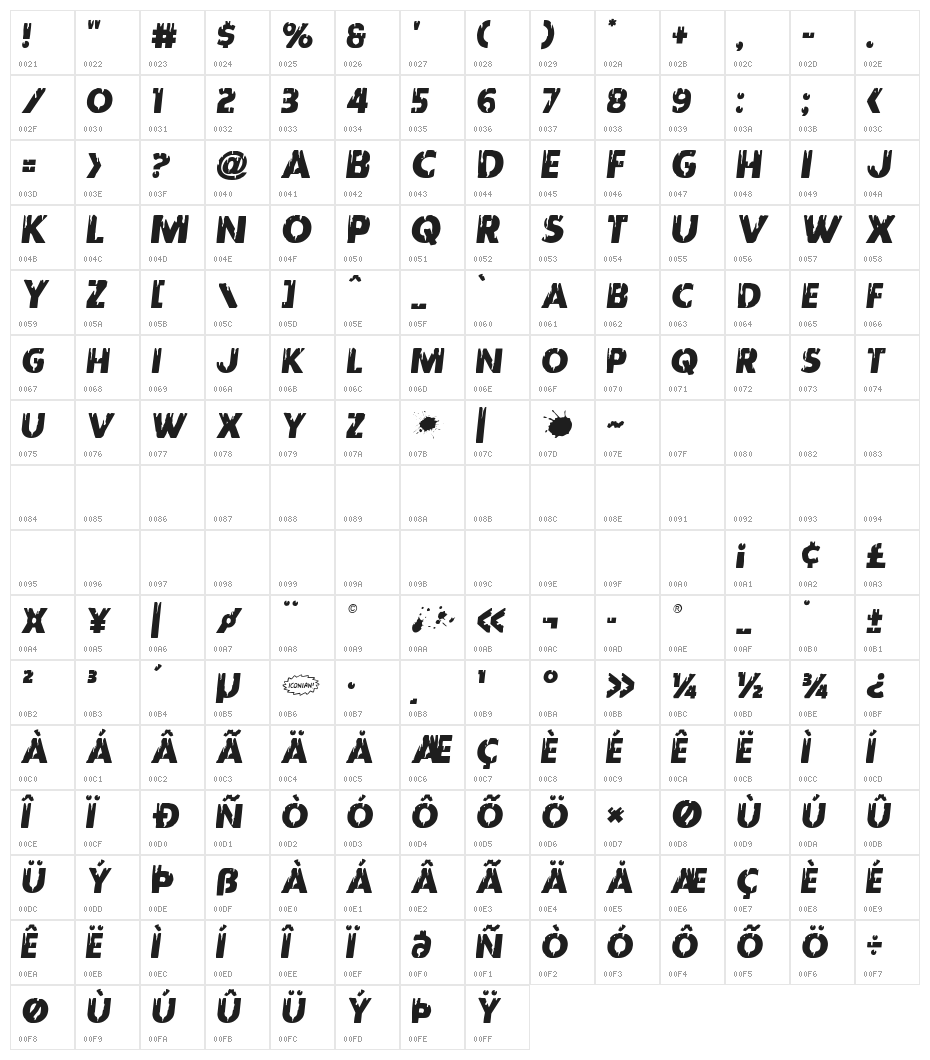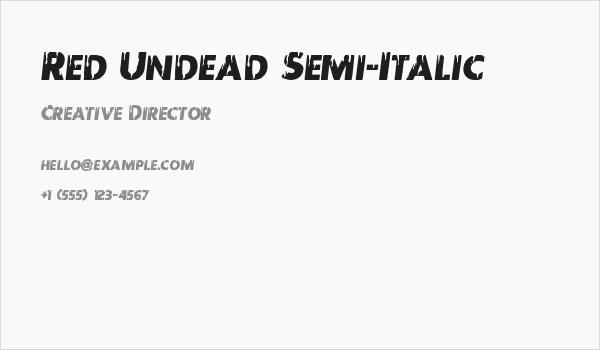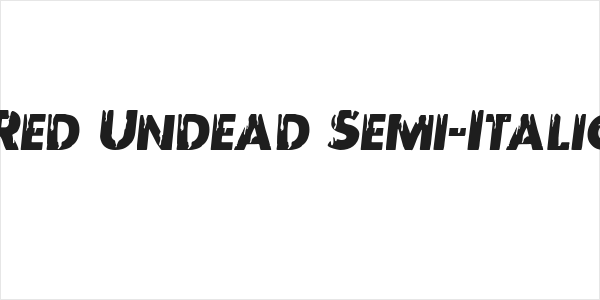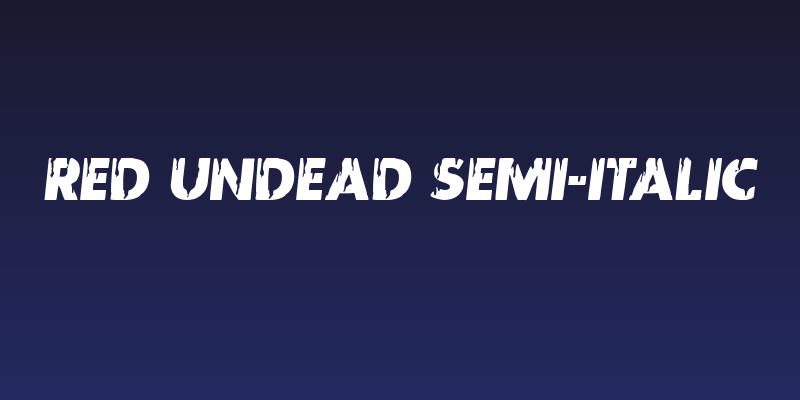
Red Undead Semi-Italic Font
Red Undead Semi-Italic Description
This font features a bold and distressed style, with a semi-italic slant that gives it a dynamic and edgy appearance. The characters are heavily textured, resembling a worn or eroded surface, which adds a gritty and rebellious feel. The uppercase and lowercase letters maintain a consistent design, with sharp angles and irregular edges that enhance its rugged aesthetic. The numbers and special characters follow the same theme, ensuring a cohesive look across all text elements. This font is ideal for projects that require a bold statement or a touch of grunge.
| Proposed Projects | Perfect for album covers, horror movie posters, edgy branding, or any design needing a bold, grunge aesthetic. |